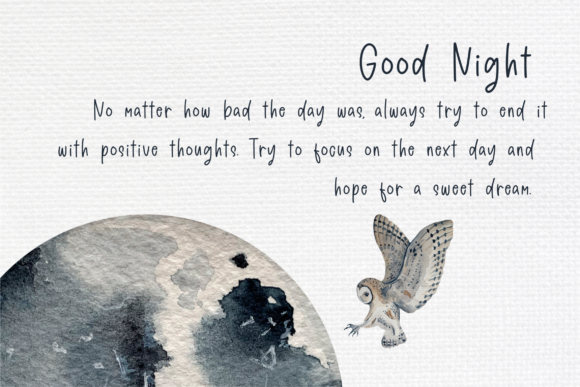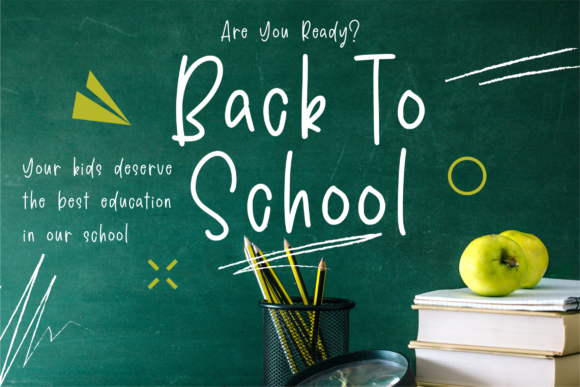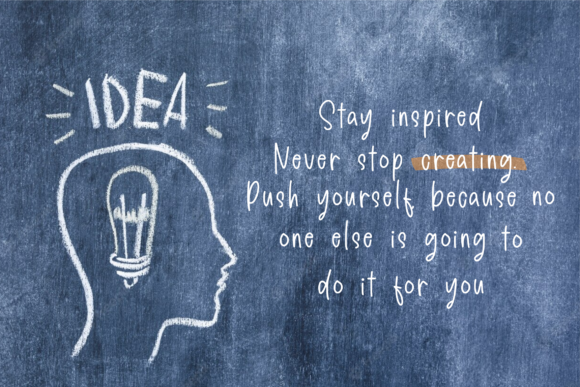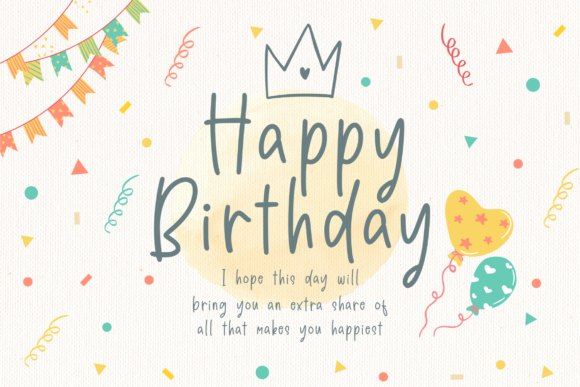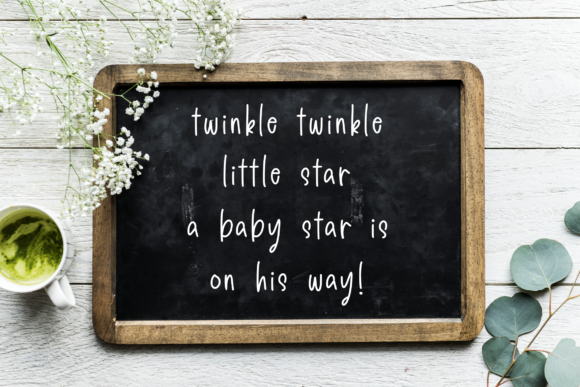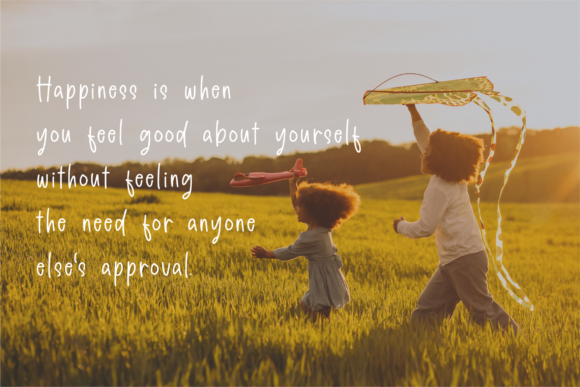
Introduction to Nightnoise Font
As designers, we’ve all been there – staring at a blank canvas, trying to find the perfect font to bring our creative project to life. It’s the moment when the right typeface can make all the difference between a design that’s just ‘good’ and one that’s truly ‘great’. For me, that moment came when I stumbled upon the Nightnoise Font.
This cute and simple handwritten font has become a go-to choice for designers looking to add a touch of personality to their work. Whether it’s product packaging, branding projects, or magazine covers, Nightnoise Font is the perfect tool to express your creativity. With its high-quality design and versatility, it’s no wonder why designers are flocking to this free download as a valuable design resource.
Key Features of Nightnoise Font
- High-quality design for creative projects, offering a unique aesthetic for various applications.
- Unique, hand-crafted design elements that can add a personal touch to any creative project.
Honest Review: Nightnoise Font
I recently came across the Nightnoise Font and was eager to see how it would fit into my creative project. Upon initial inspection, I was impressed by the high quality and unique design of this font.
- ✨ Unique blend of elegant and mysterious vibes, perfect for adding a touch of sophistication to any design
- ⚠️ Limited availability in certain languages and scripts, which may impact its usability in multilingual designs
Overall, I’m impressed by the Nightnoise Font’s potential as a design resource. While it may have some limitations, its unique design and high quality make it a valuable addition to any creative project. I’d definitely recommend it to designers looking for a free, high-quality font that adds a touch of elegance to their work.
The Nightnoise Font is ideal for use in creative projects, such as logos, icons, graphics, and typography. Its transparent background and high-quality design make it a great design resource for presentations, documents, and websites.